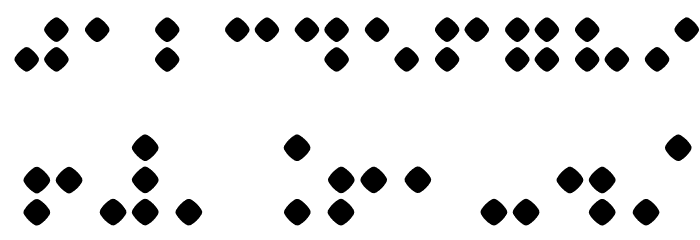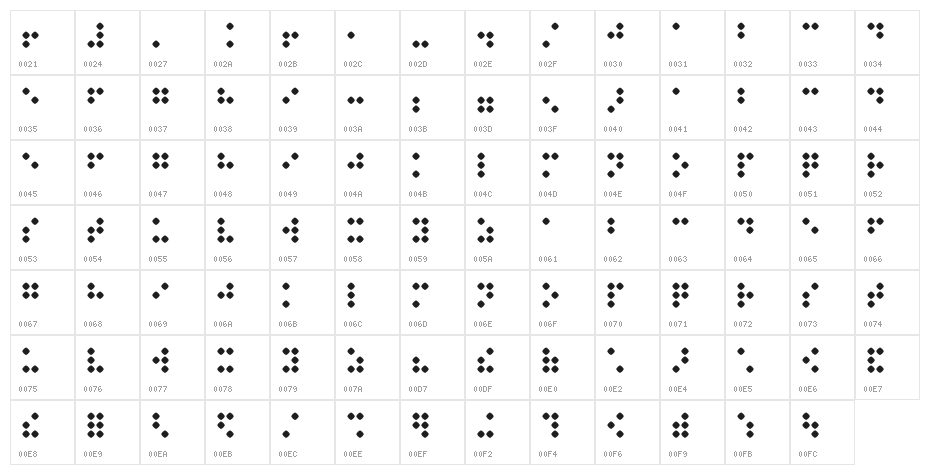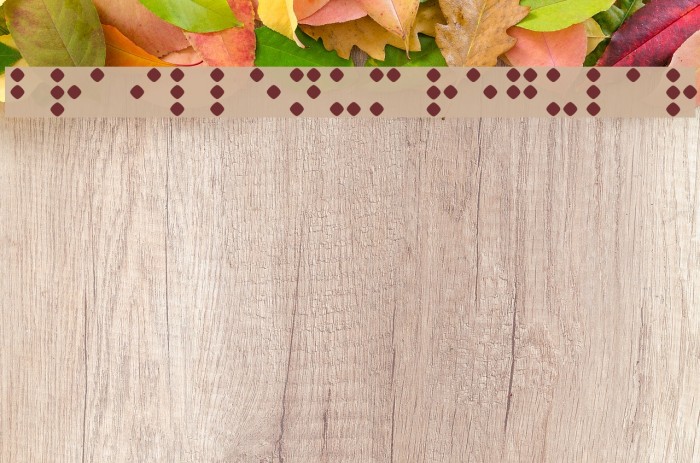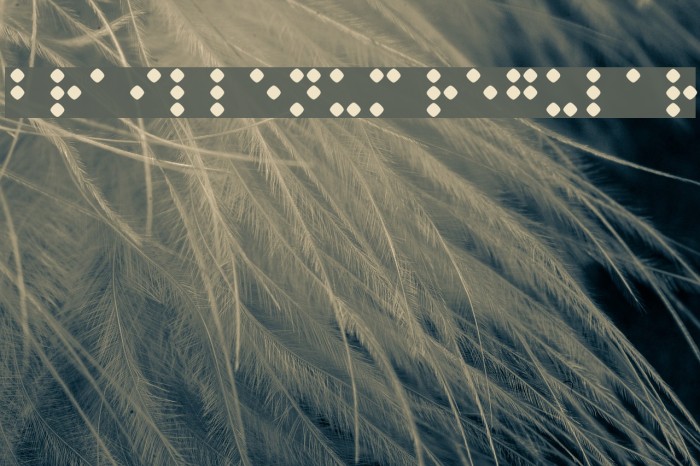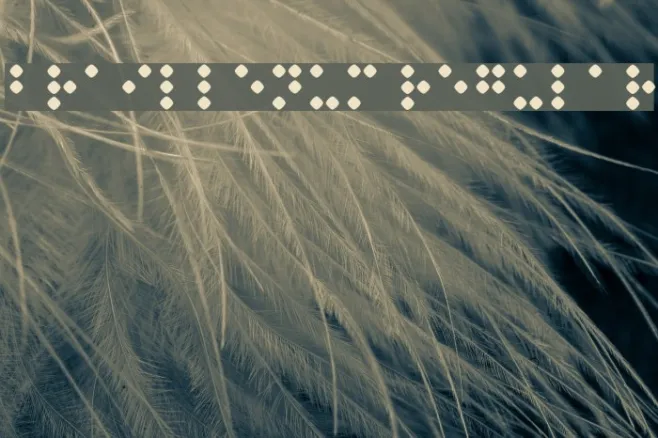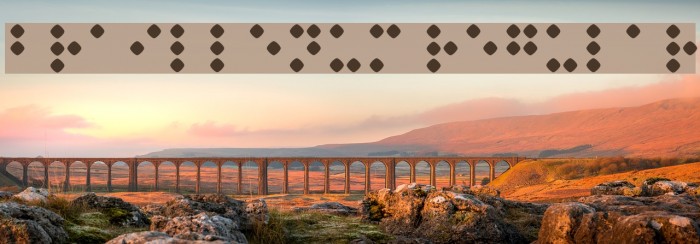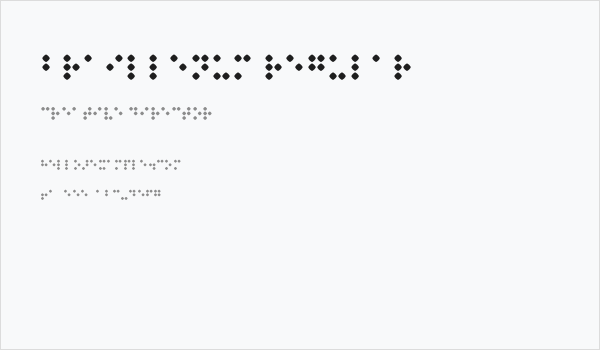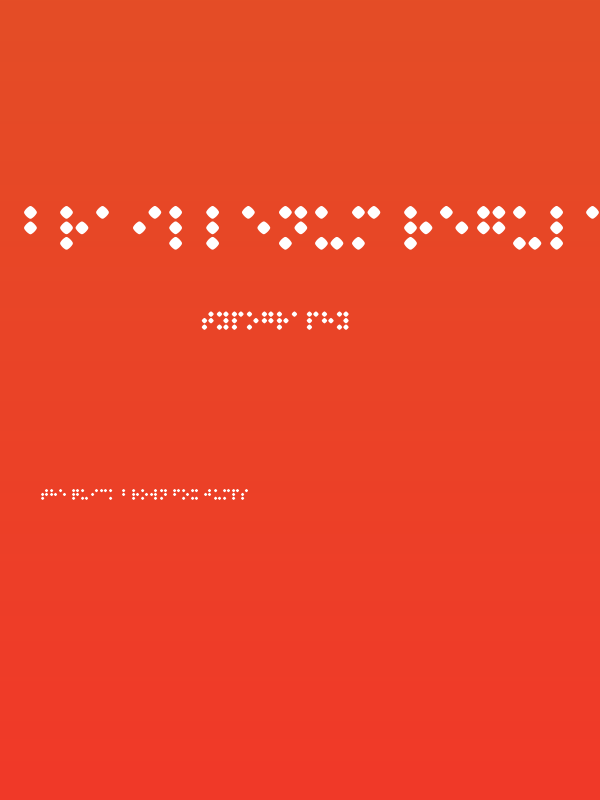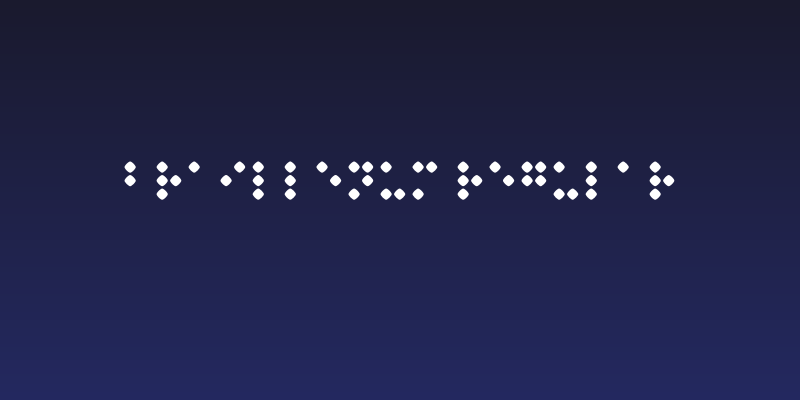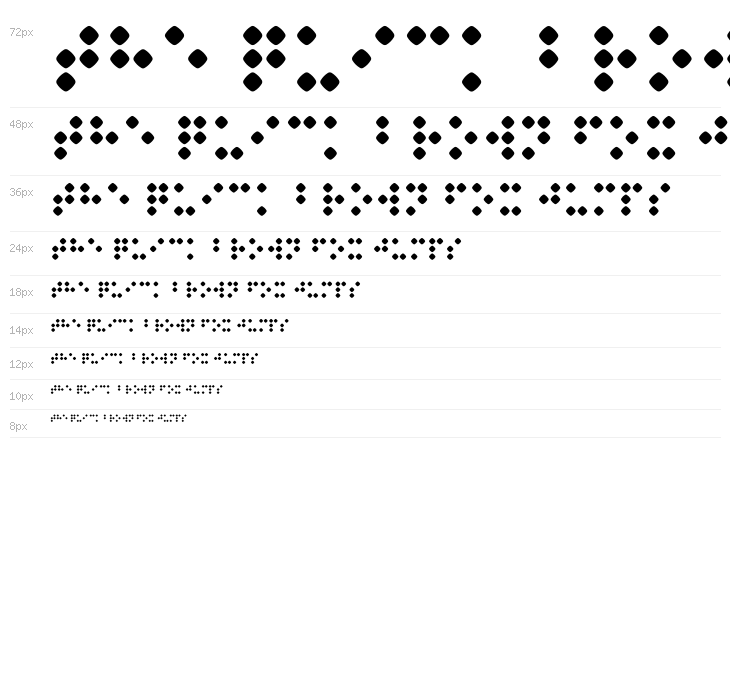
Braillenum Regular Font
Braillenum Regular Description
This is a Braille font designed to represent characters using a pattern of raised dots, typically used by visually impaired individuals for reading. Each character is formed by a combination of up to six dots arranged in a 2x3 grid. The font is uniform in style, with each dot being evenly spaced and sized, ensuring clarity and readability. It is a specialized font that translates standard alphanumeric characters and punctuation into Braille, maintaining the traditional tactile reading system.
| Overall Style | Functional |
| Use Case | Accessibility, Educational materials |
| Proposed Projects | Ideal for creating educational materials for the visually impaired, signage in public spaces, and accessible digital content. |